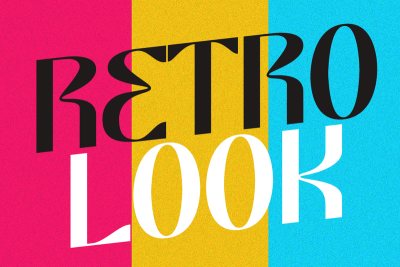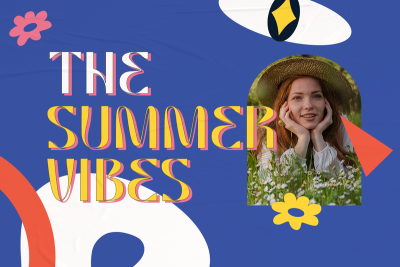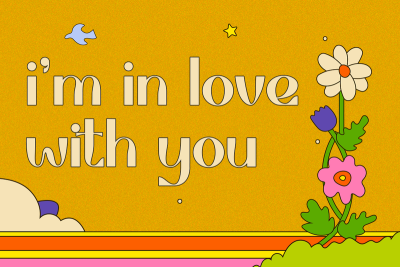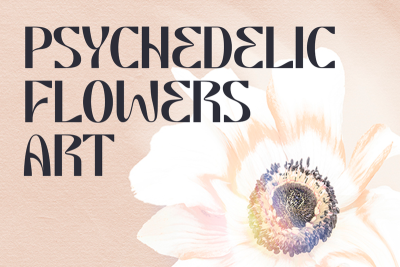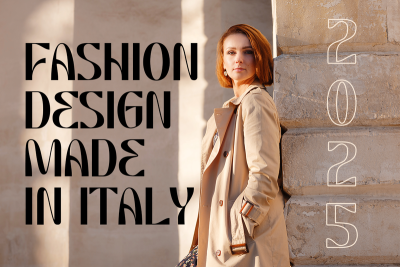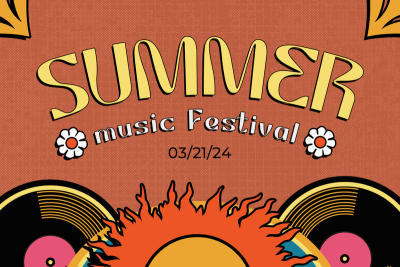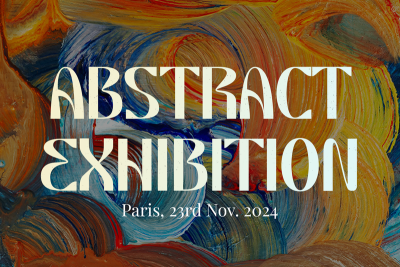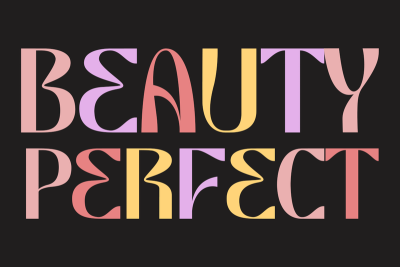
Instagram Font Saharas is a modern, stylish, and versatile typeface. It blends elegance with a touch of exotic flair. Inspired by the vast Saharan desert, this font captures the essence of smooth dunes, warm sunsets, and timeless beauty. Each letter combines curves and sharp edges uniquely, making it stand out. The sophisticated yet minimalistic style enhances readability while adding a distinctive aesthetic.
This font works seamlessly for digital and print media. It excels at creating captivating visuals. Whether designing an Instagram post, a striking logo, or branding materials, this font provides an elegant, contemporary look. Its well-balanced proportions and unique letterforms make it ideal for luxury brands, fashion campaigns, and social media content that demands attention.
Another highlight of Instagram Font Saharas is its adaptability. It pairs effortlessly with serif and sans-serif fonts, allowing for creative versatility. Whether used in bold headlines or subtle captions, it brings sophistication and modernity. If you want to enhance your digital presence with an elegant font, Saharas is the perfect choice.
Who Should Use Instagram Font Saharas?
Instagram Font Saharas is a must-have for designers, social media influencers, and branding experts. Itโs well-suited for:
- Content Creators & Social Media Influencers โ Whether designing Instagram stories, YouTube thumbnails, or TikTok graphics, Saharas adds a luxurious and modern touch.
- Luxury & Fashion Brands โ The sleek, elegant curves align perfectly with fashion labels, beauty brands, and luxury products seeking a sophisticated identity.
- Graphic Designers โ From logos to website typography, Saharas enhances branding, packaging, and advertising with versatility and elegance.
- Event Planners & Wedding Invitations โ The graceful yet contemporary feel makes it ideal for wedding invitations, elegant announcements, and upscale event branding.
- Lifestyle Bloggers & Entrepreneurs โ If you run a lifestyle brand, travel blog, or personal brand, Saharas helps create a consistent, polished look.
- Minimalist Designers โ With its clean yet stylish aesthetic, Saharas suits those who appreciate simplicity with a touch of elegance.
Instagram Font Saharas is more than just a typeface. Itโs a statement of style, sophistication, and creativity. Whether elevating your brand, creating visually stunning content, or designing high-end marketing materials, this font leaves a lasting impression.